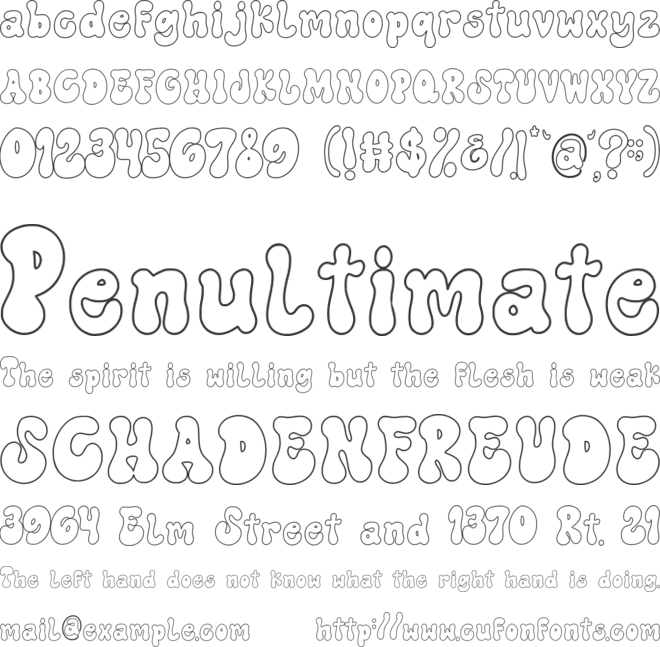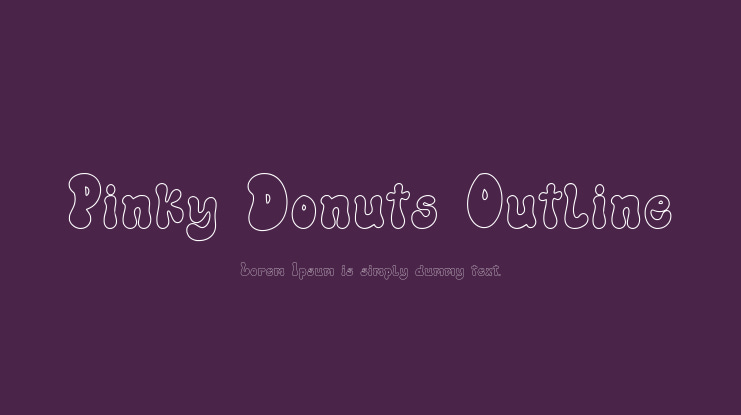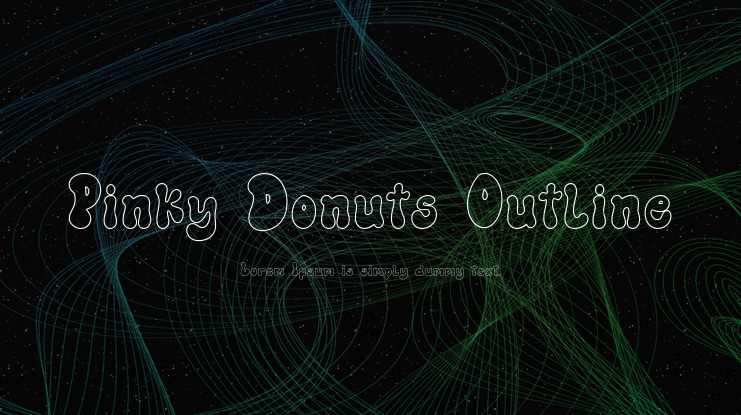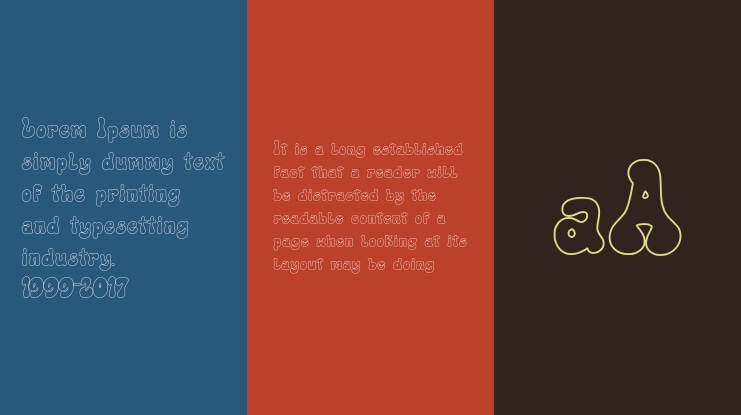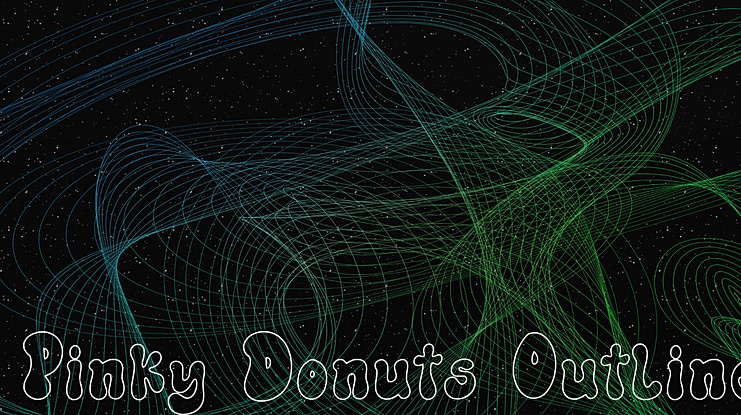
Pinky Donuts Outline Font Family
Qwrtype Foundry
This is a versatile, playful, and retro display font. It is perfect for a wide spectrum of applications such as greeting cards, headlines, and many more! Add it confidently to your projects, and you will love the results.